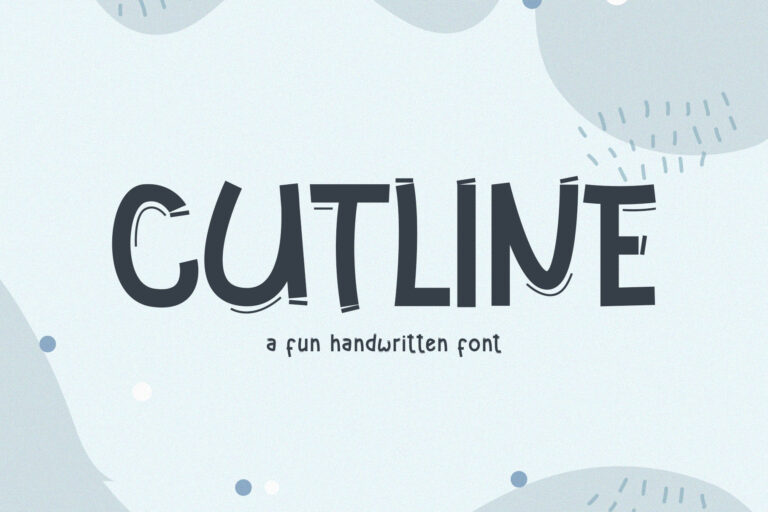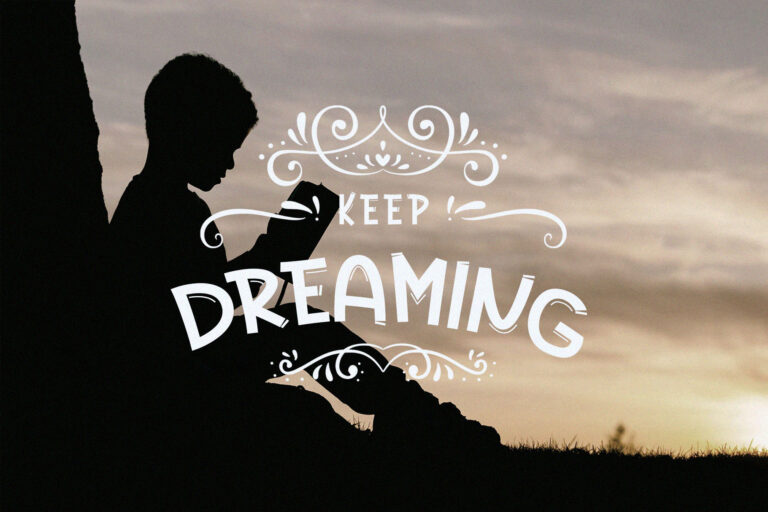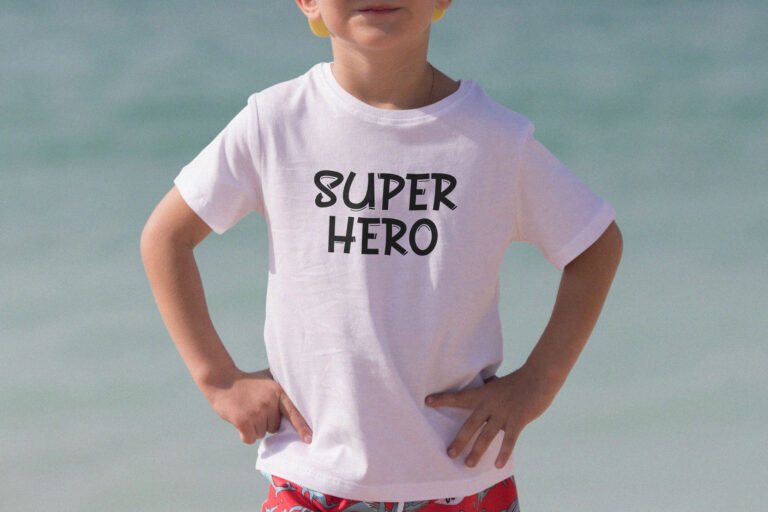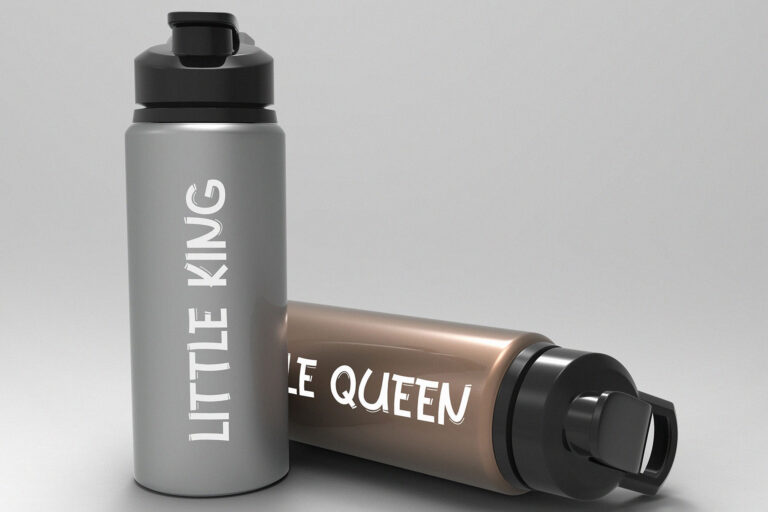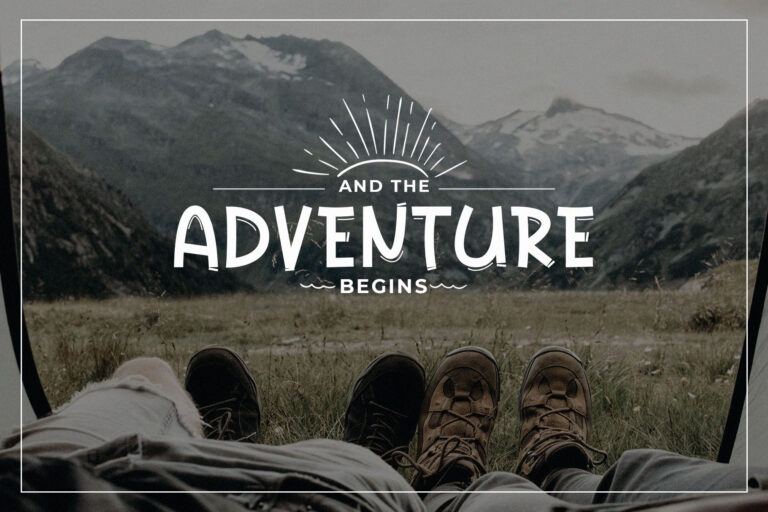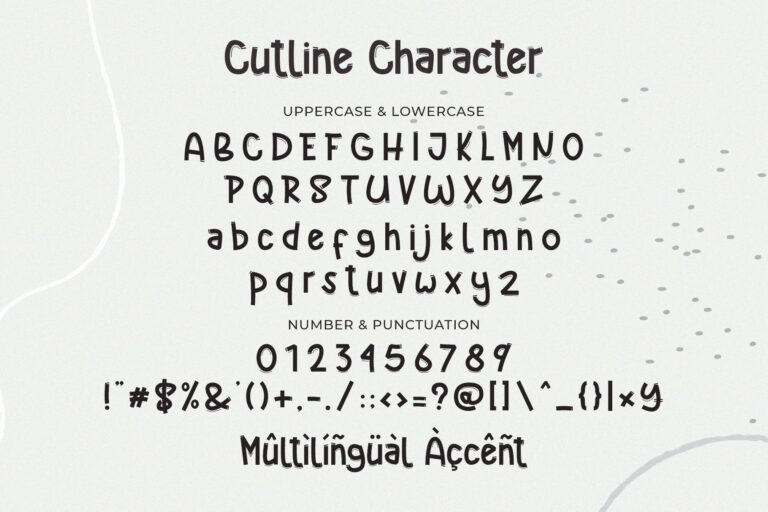
Cutline // A Fun Handwritten Font
Cutline is a cute, funny, sweet handwritten font. Clean and soft, this font is the perfect fit for all of your crafty DIY projects, cricut, logos, branding, social media, etc.